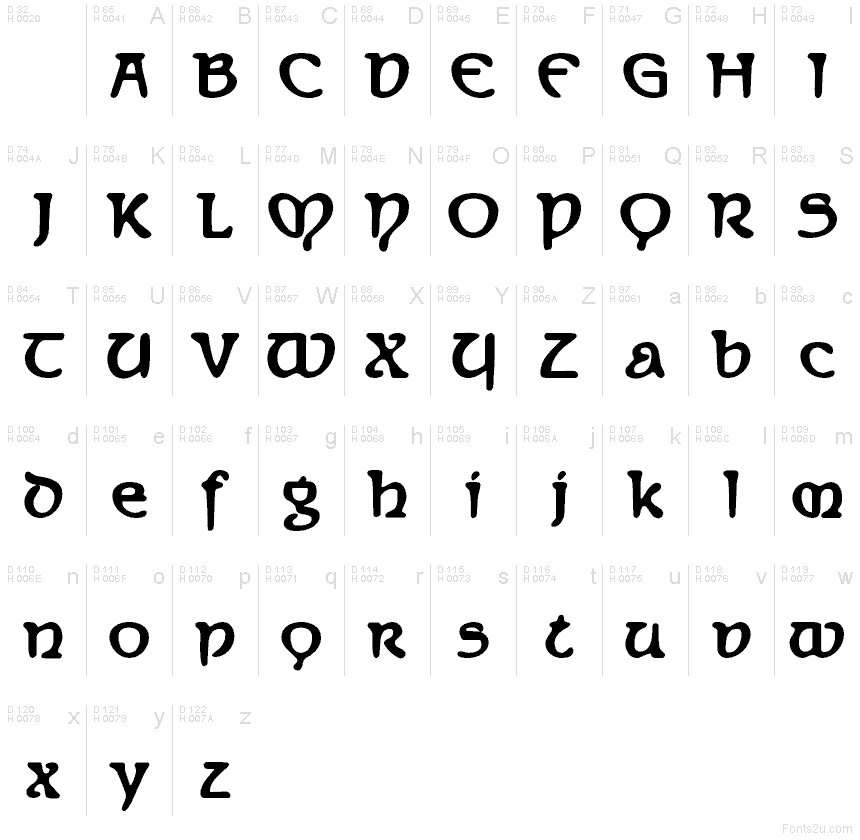
CS Piera Drawn font by Craft Supply Co. is a free celtic display font. Built within the CS Piera family, it stands out with softly swollen strokes, pebble-smooth curves, and inky, hand-drawn edges that hint at knotwork without going full ornament. The letters feel warm and lively-rounded terminals, gentle tapering, and a subtle bounce that keeps headlines tactile and human.
Using CS Piera Drawn, your titles gain story-rich texture for pub branding, heritage festival posters, fantasy book covers, craft beer labels, café menus, and game splash screens. The rhythm is bold yet readable, so short copy has presence without shouting. For a clean balance, pair this free font’s headlines with a simple modern sans at smaller sizes and let the Drawn cut sing at larger scales.